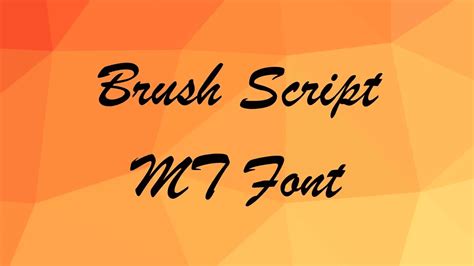
Font Brush Script Mt. This heavy, informal script looks as though it was written with a brush because its lowercase letters join together. Web browse fonts by category.
Web brush script mt font is a casual connecting script typeface that looks like liquid font designed in 1942 by means of robert e. This heavy, informal script looks as though it was written with a brush because its lowercase letters join together. Web browse fonts by category. Web brush script mt regular is a regular truetype font. Explore brush script mt fonts at myfonts. You can find more information. Smith for the american type founders. 1 users have given the font a rating of 5.0 out of 5. It has been downloaded 1144 times. Web brush script mt font is a high quality brush font that is designed by robert e and is available for free download personal & commercial use.